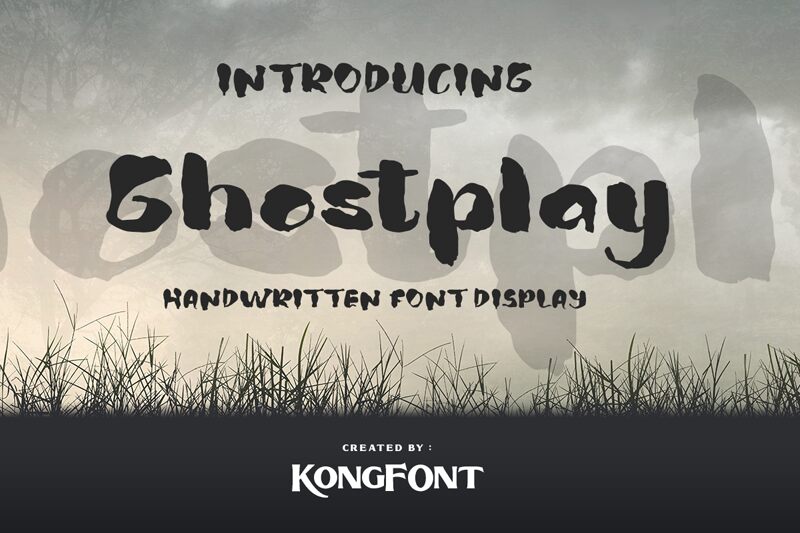
Ghostplay
Ghostplay font was originally crafted by Kong Font and has been growing in popularity ever since. This free Halloween typeface works with brush strokes resulting in an artistic, expressive, organic and raw graphical impression. Its letters are bold and expanded and allow the best visibility for all readers.
Put Ghostplay into action by integrating it inside your book covers, posters, T-shirt prints, wall art typography or branding designs. The use cases don’t stop here; other suitable applications include greeting cards (Christmas or Halloween related ones), mugs artworks, website titles or even product labels.